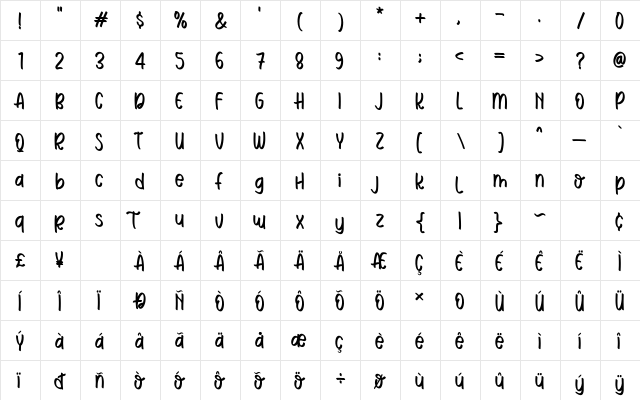
Christoper Regular
| Foundry | HansCo |
| Designer | Burhan Afif |
Design Context for Christoper Typeface
Christoper is a composed and adaptable typeface that performs quietly and consistently across a wide range of design contexts.